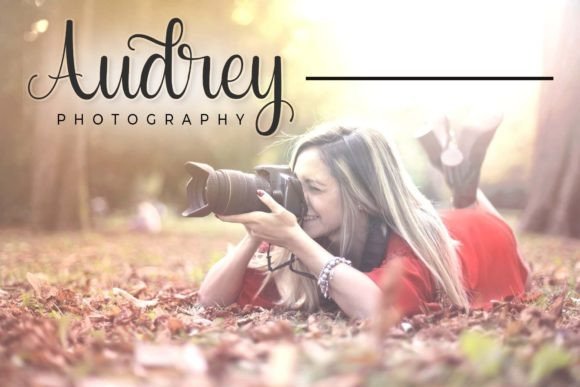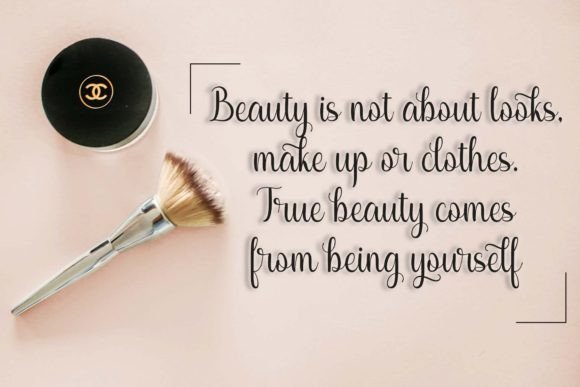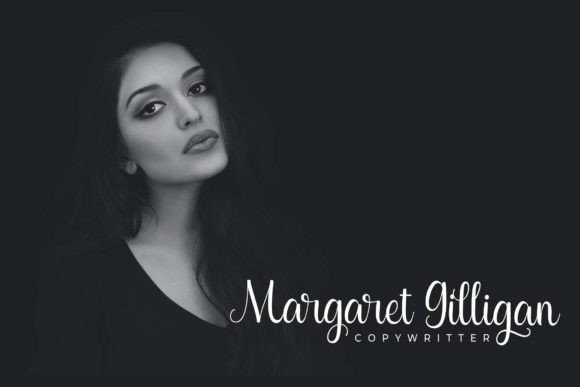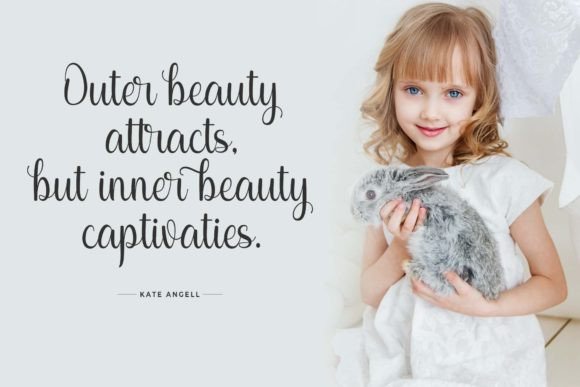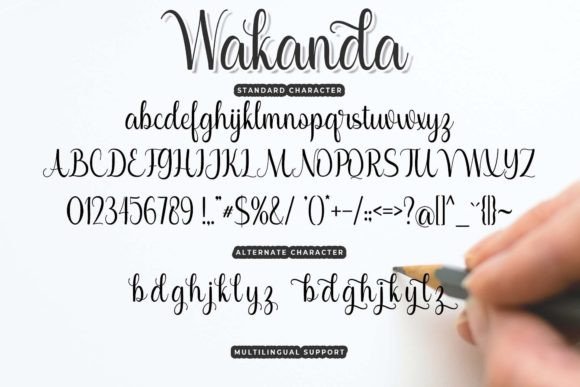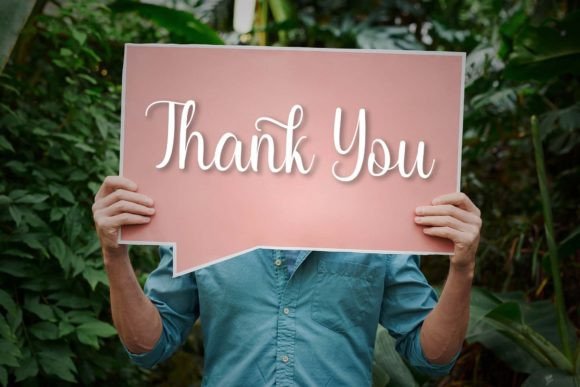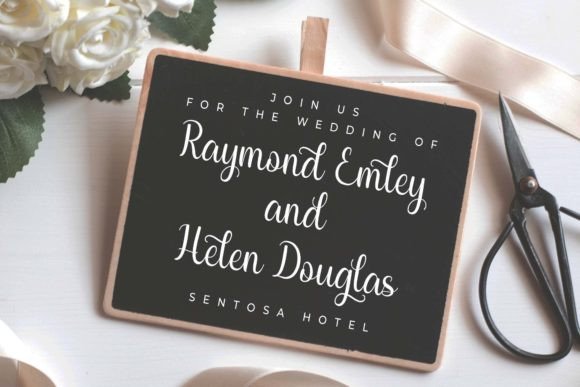
Wakanda Font
About Wakanda Font
“Wakanda” is a romantic and sweet calligraphy typeface that exudes elegance and charm. Its characters dance along the baseline, creating a sense of fluidity and grace. With its luxurious and sophisticated appearance, “Wakanda” adds a touch of opulence to any design project you wish to create. This font is perfect for a variety of applications, including wedding invitations, branding, logos, posters, and more.
The font’s romantic and flowing letterforms create a sense of romance and tenderness, making it ideal for projects that aim to convey love and affection. The characters in “Wakanda” are beautifully crafted, adding a touch of refinement and luxury to your designs. Whether you’re working on elegant invitations or upscale branding materials, “Wakanda” enhances the overall aesthetic of your projects, making them visually stunning.
One of the standout features of “Wakanda” is its ability to add a luxury spark to any design. Its calligraphic style and intricate details give your text a sophisticated and high-end look. The font’s PUA encoding allows you to access a wide range of glyphs and ligatures, providing you with creative freedom and flexibility in your design work.
By incorporating “Wakanda” into your projects, you’re elevating them to a new level of elegance and style. Its romantic and sweet calligraphy style adds a touch of sophistication, making your designs visually appealing and memorable. Whether you’re a graphic designer, a wedding planner, or an individual working on personal projects, “Wakanda” offers you a luxurious and enchanting font choice to enhance your creative endeavors and create designs that exude romance and luxury.